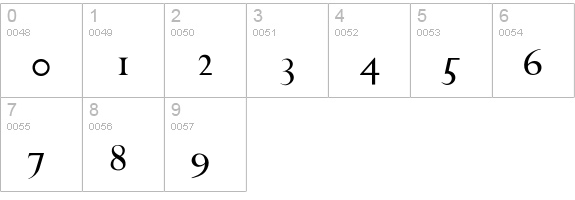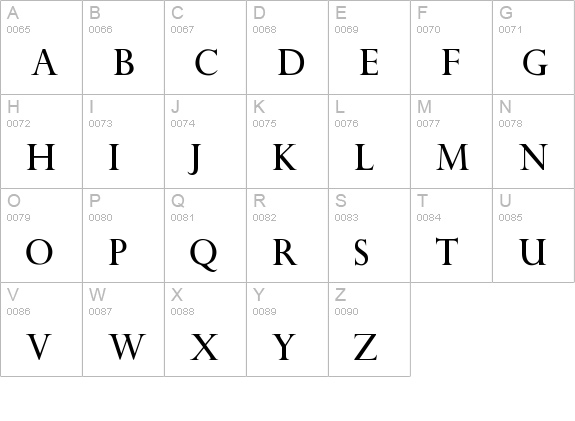
Saigon Font Details
Saigon font, a masterpiece of typographic artistry, is a stunning display font that embodies the essence of elegance and sophistication. With its sleek and modern design, Saigon font is the perfect choice for adding a touch of class to any project. With its clean lines and precise curves, Saigon font exudes a sense of professionalism and refinement. Whether you're designing a logo, creating a website, or crafting a beautiful invitation, this font will effortlessly elevate your work to new heights. What's even better is that Saigon font is completely free! Yes, you read that right. This extraordinary font is freely available to download at FontsMarket.com, ensuring that anyone can have access to its brilliance without breaking the bank. Saigon font's versatility knows no bounds. Its wide range of weights and styles allows you to effortlessly switch between bold and light, giving you the flexibility to create eye-catching headlines or subtle and elegant body text. The attention to detail in Saigon font is simply remarkable. Each character is meticulously crafted to perfection, ensuring a seamless and harmonious flow of letters that will captivate your audience. Whether it's the delicate curves of the lowercase 'g' or the bold and confident strokes of the uppercase 'S,' every aspect of Saigon font has been carefully considered. So why wait? Embrace the beauty and elegance of Saigon font and take your designs to the next level. Download it for free at FontsMarket.com and let your creativity soar. Remember, great design should never be limited by cost, and Saigon font is here to prove that style and quality can be accessible to all.